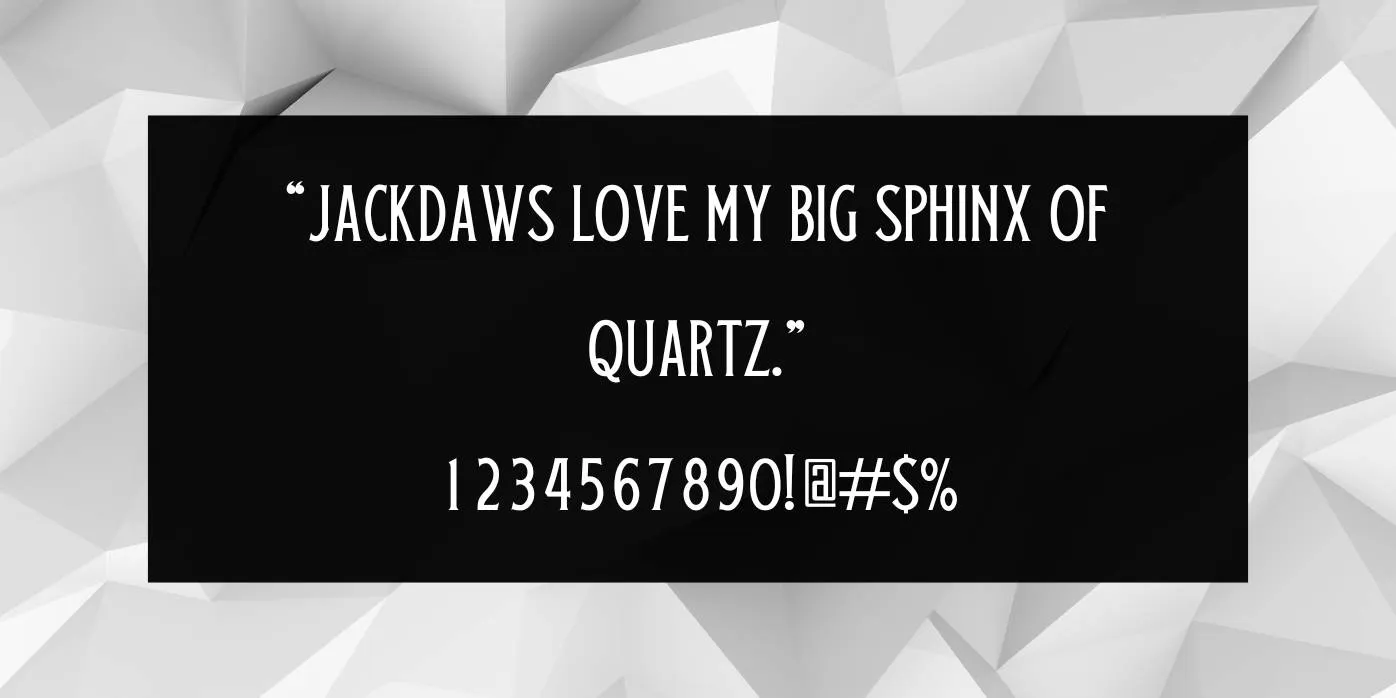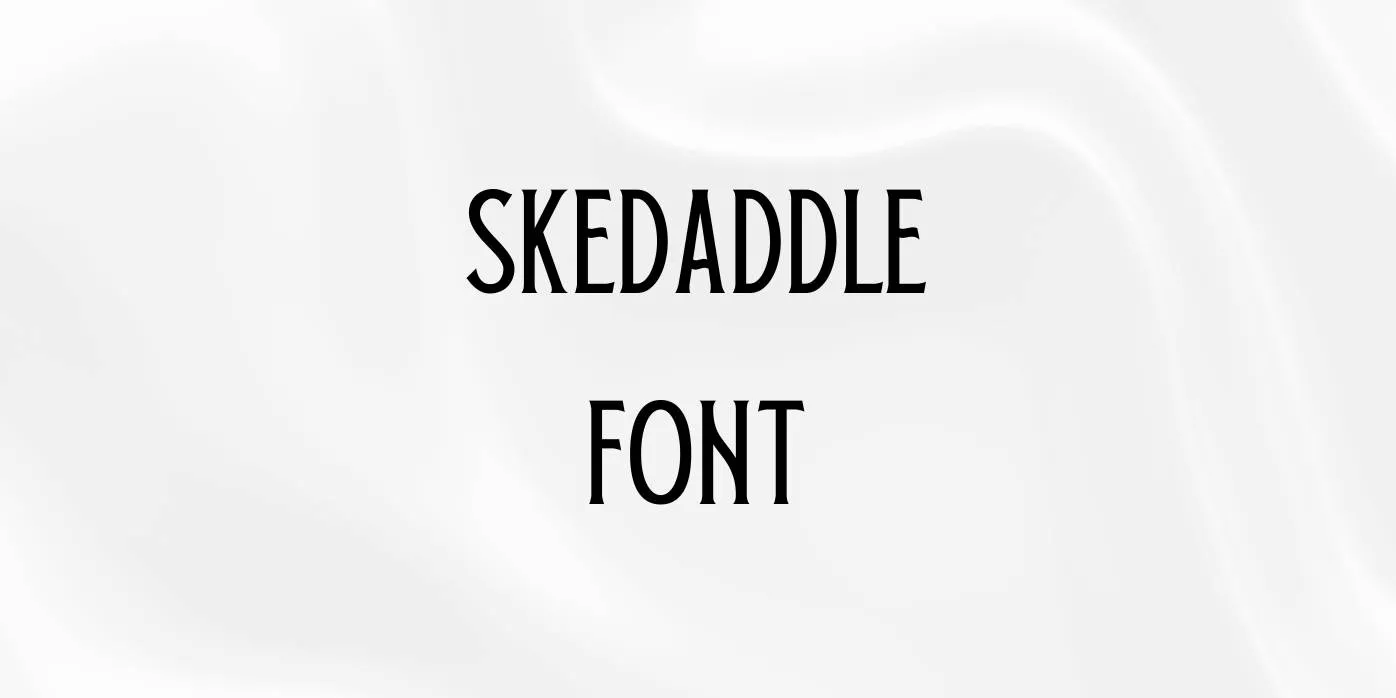
Skedaddle Font
Let’s talk about a very amazing fancy font Skedaddle Font. It was designed by Steve Harrison and launched by SleepyGecko. This stunning font has only one style of regular weight. Its large x-height makes it look more nice and neat.
It can be read easily in small-size projects also. You can make both types of projects personal and commercial by using it but take permission for commercial projects from its owner. An online generator tool supports this font to change simple text or design into a stylish look without downloading the font. The weight of the font is Semi-light and its width is condensed.
The pattern nature of this font is regular and its pitch is not monospaced. It contains 123 characters, 113 glyphs, and 1000 units per Em. This font supports file format TTF(TrueType Font) and OTF (Open type font) and you can download it on many devices such as Windows, Mac, and Android. It can be used for pairing with other fonts like duality font to give a more attractive look to your projects.